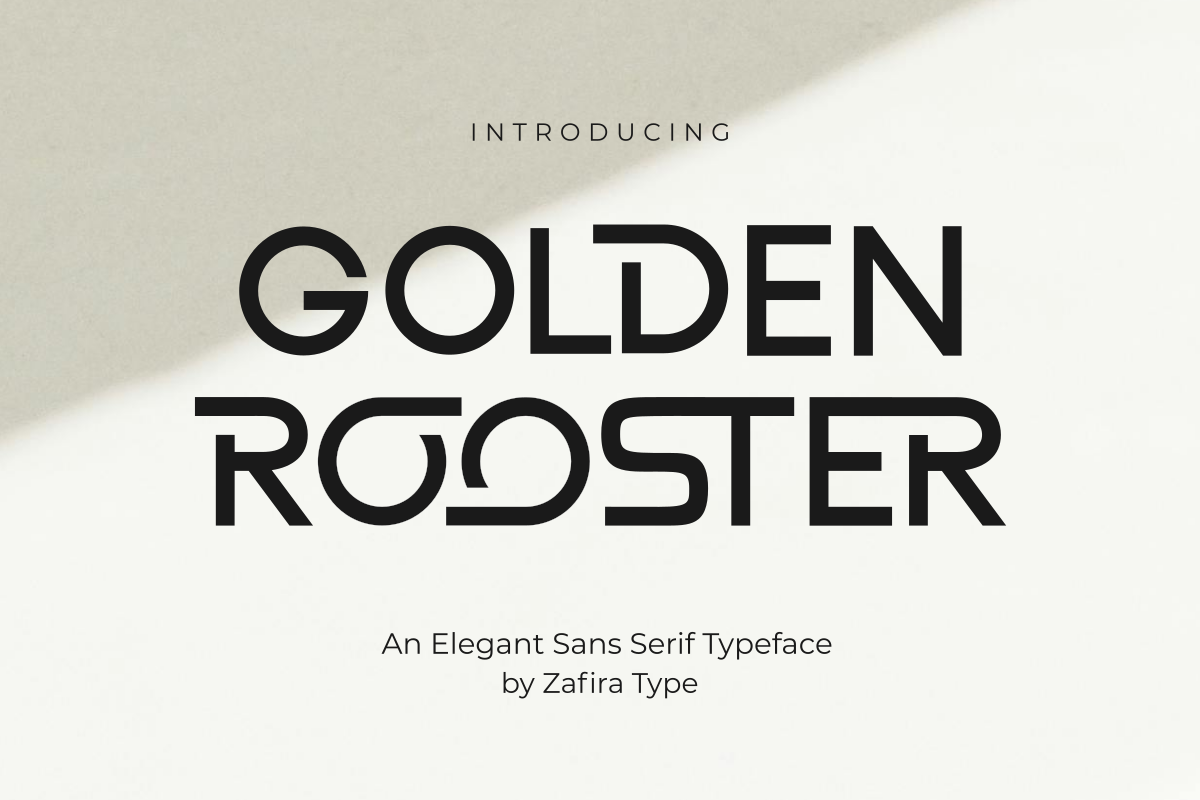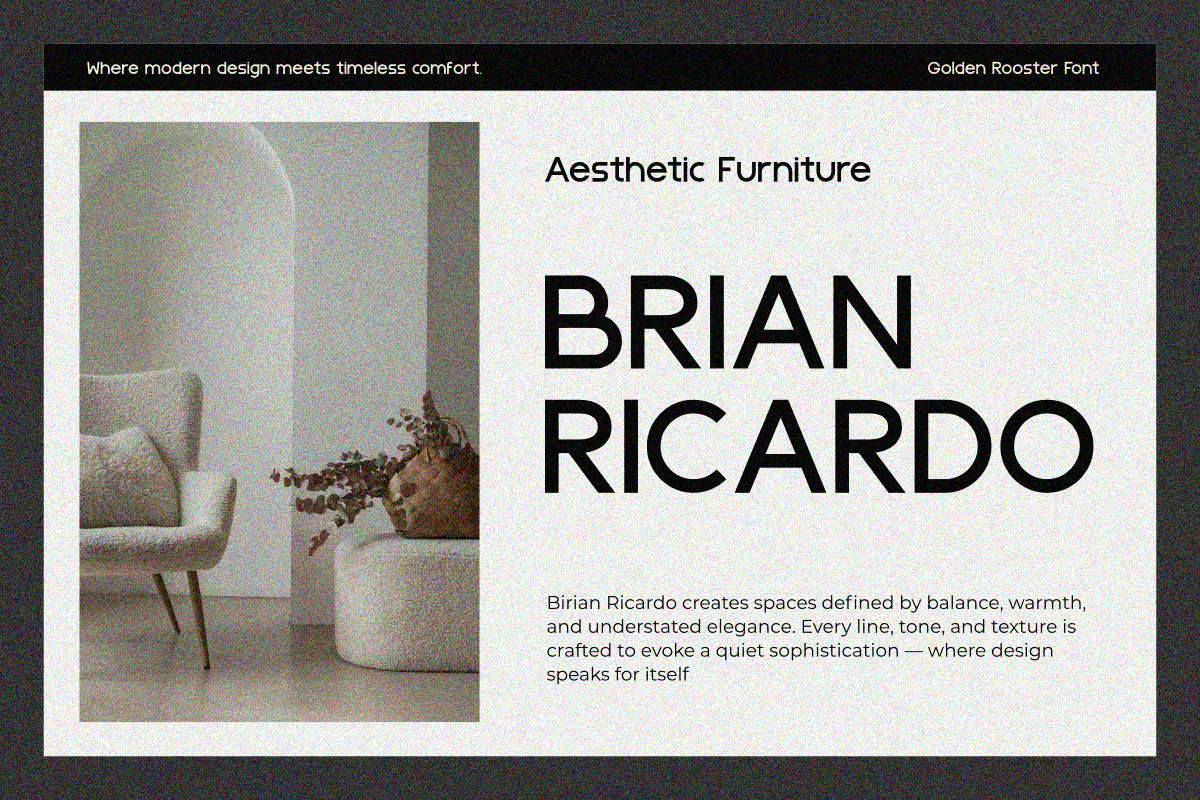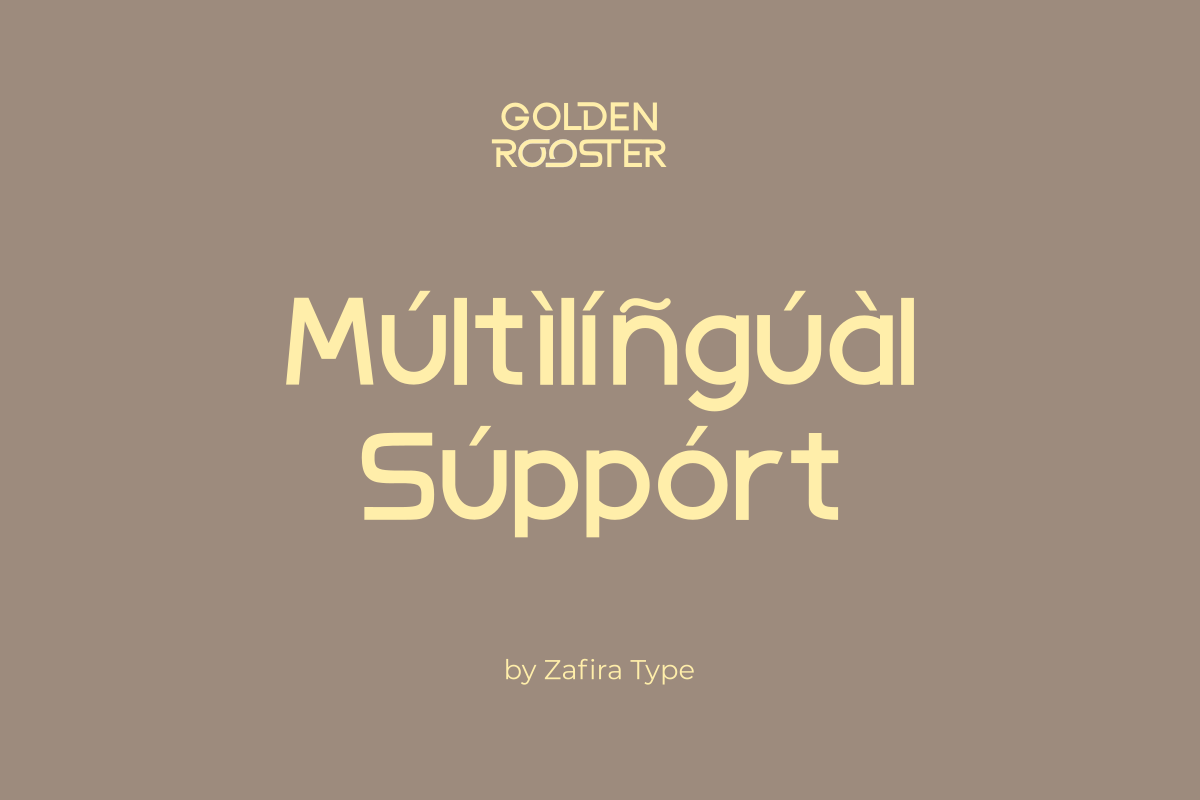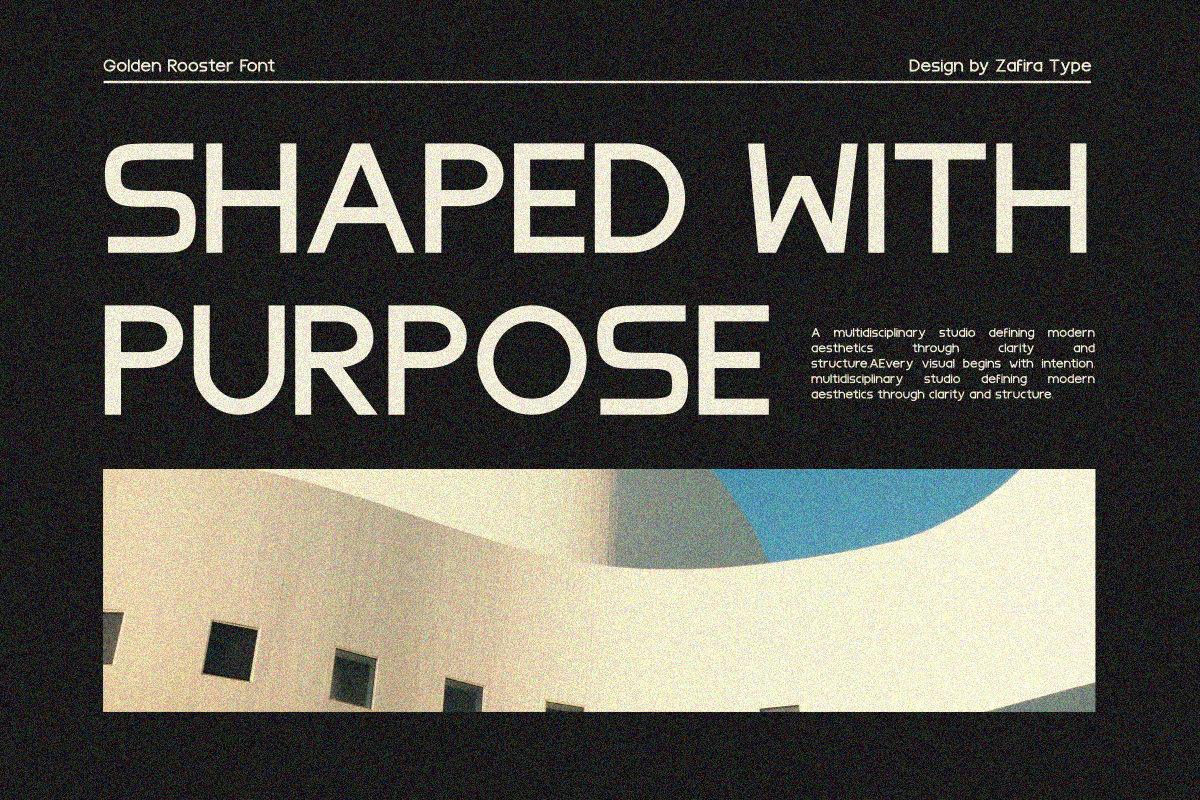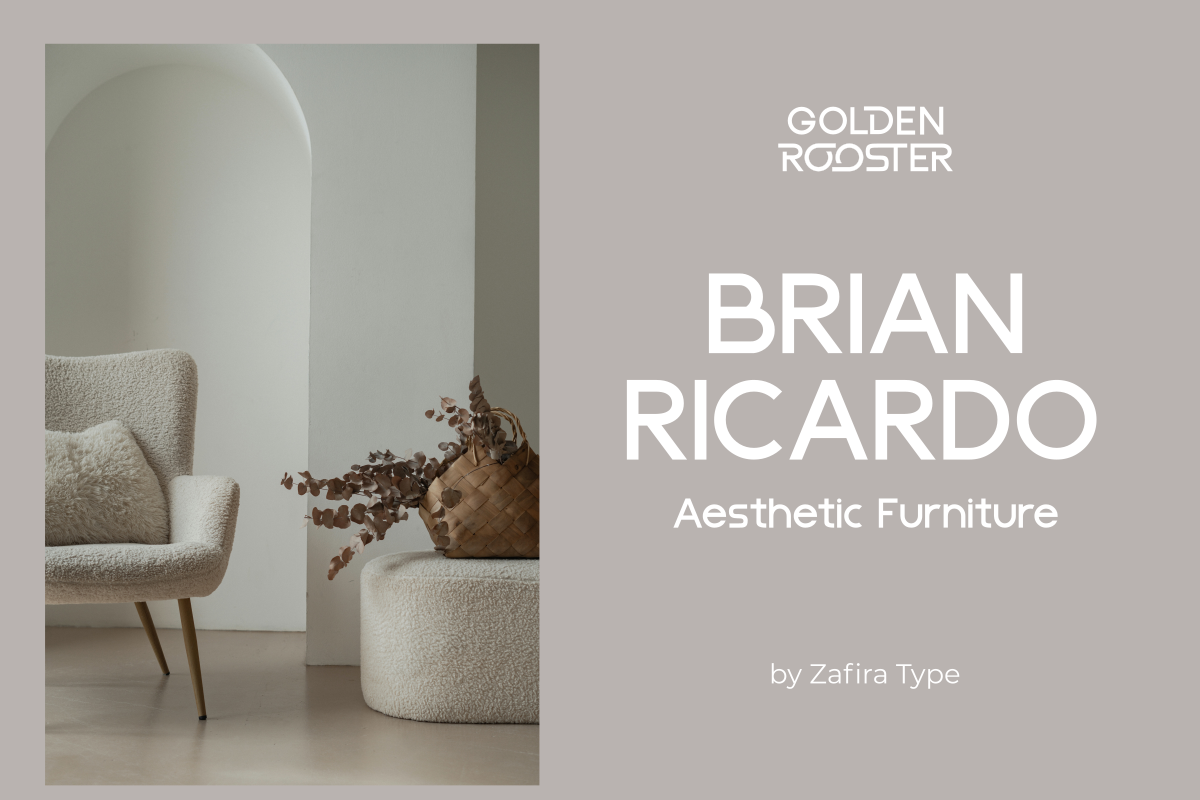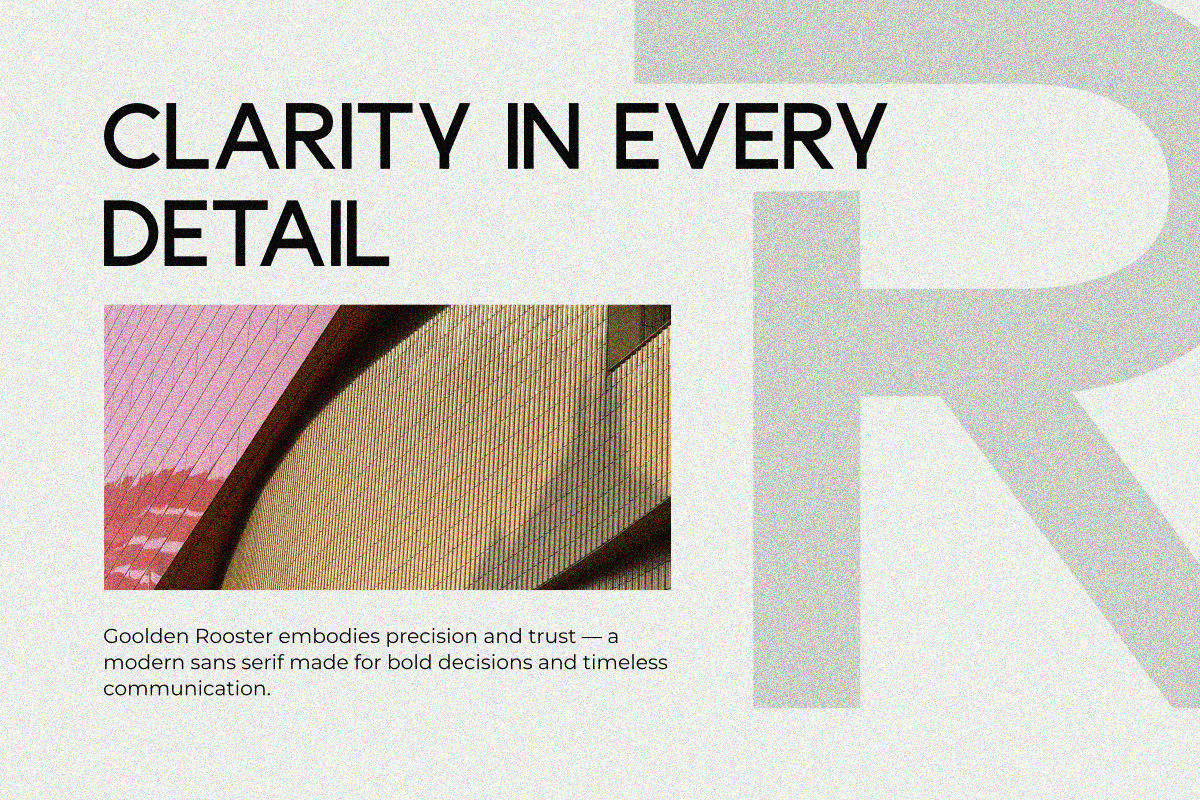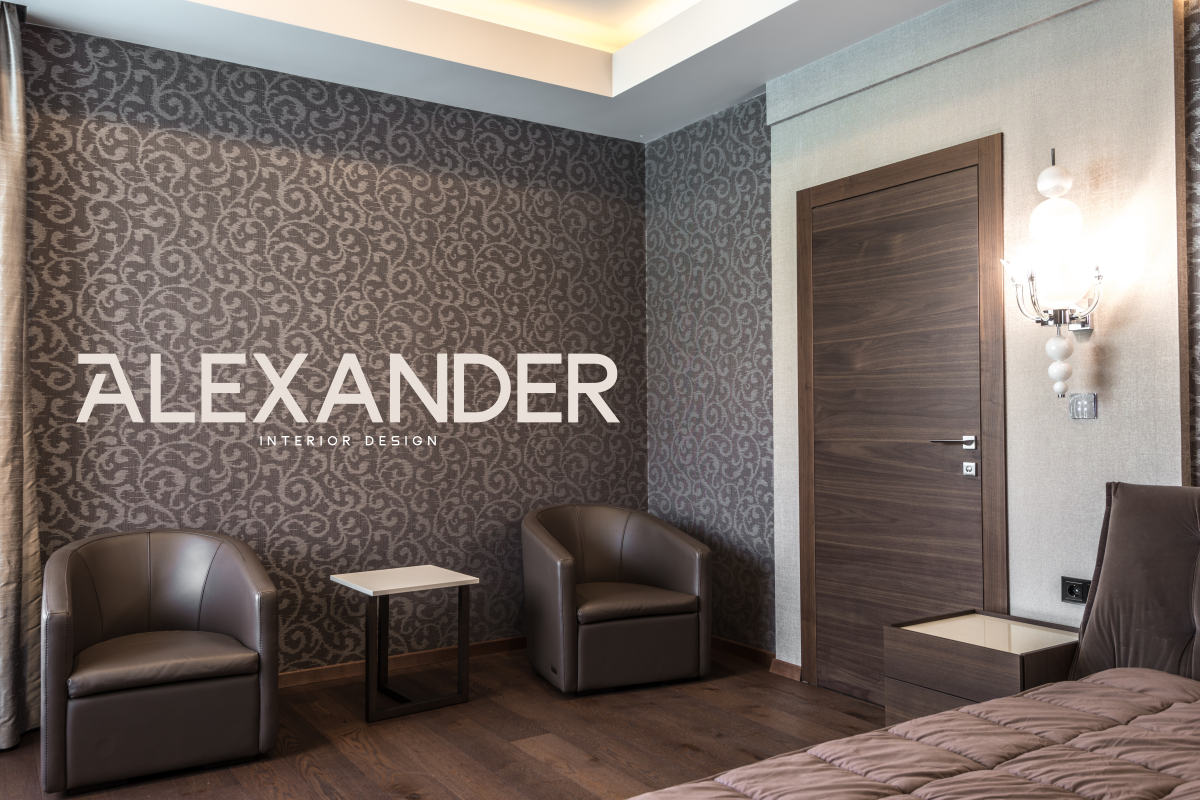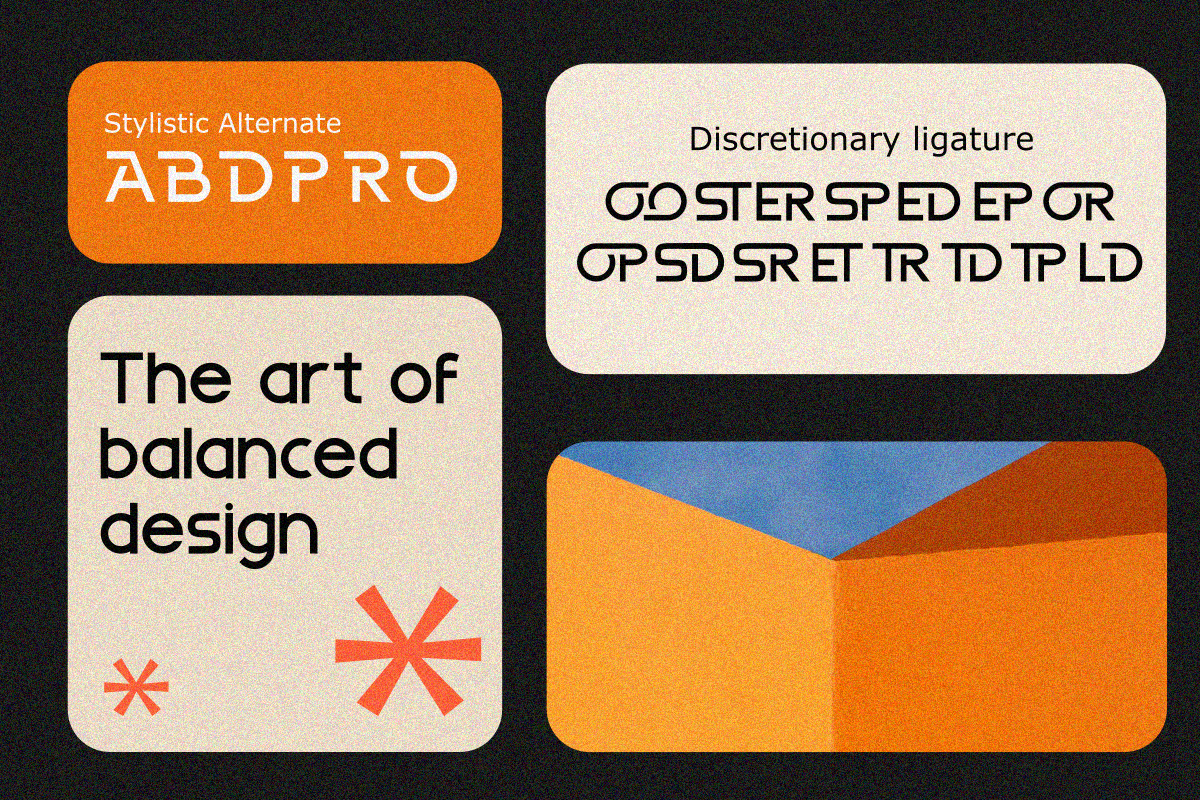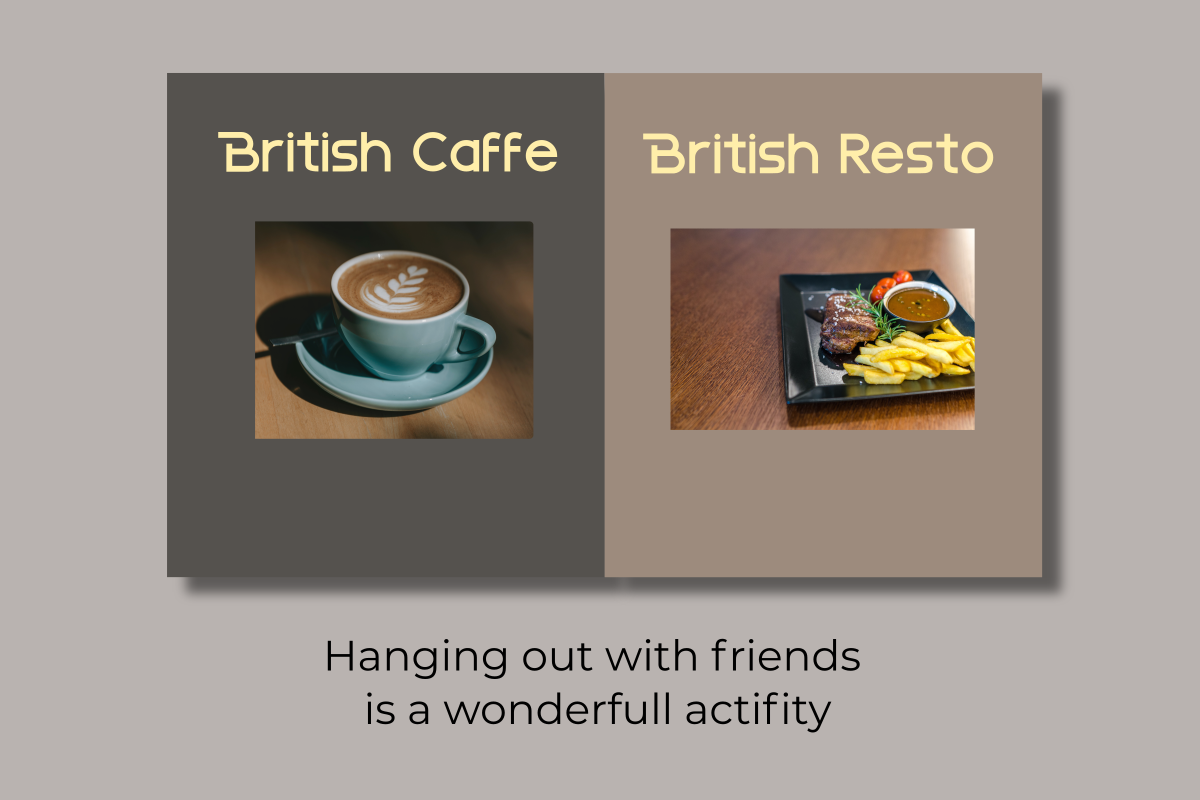
Golden Rooster
Golden Rooster is an elegant and smooth sans serif font. Golden Rooster is a perfect use for a logo for branding, typography design, badge design, product packaging, invitations, quotes t-shirt design, label posters, special events, and anything that needs vintage taste.â